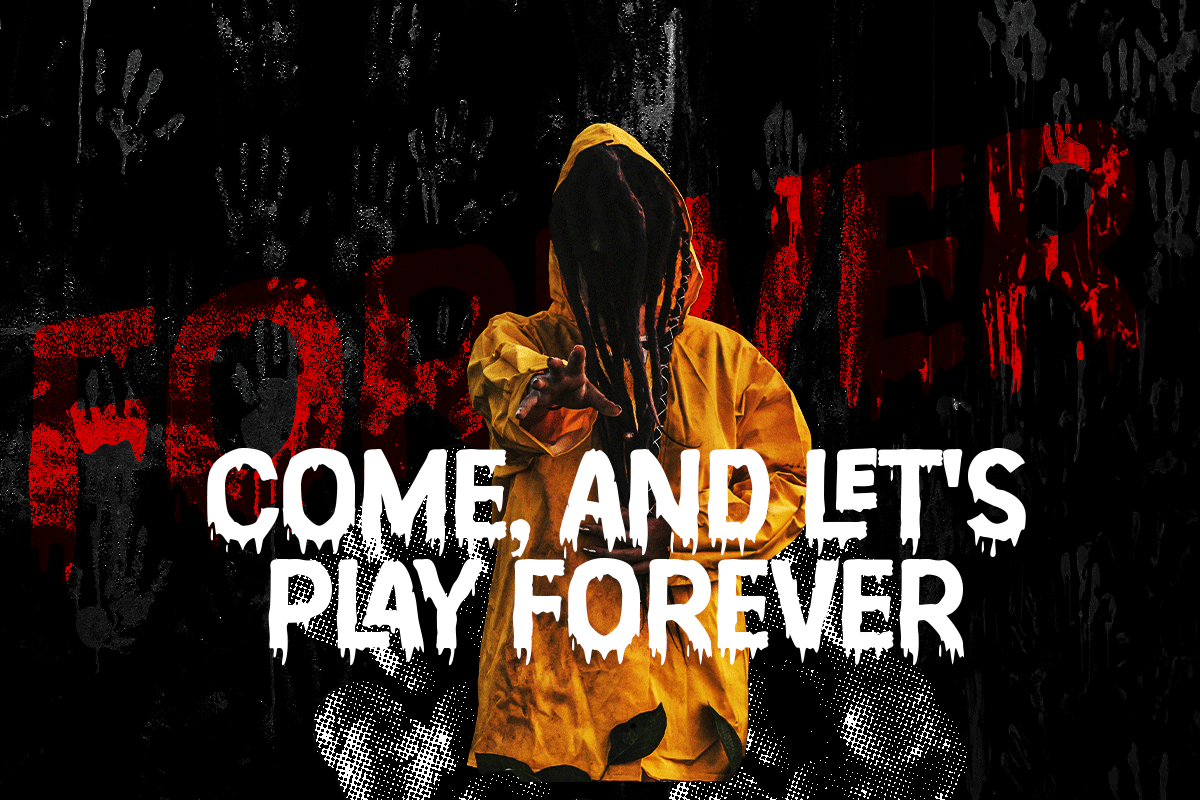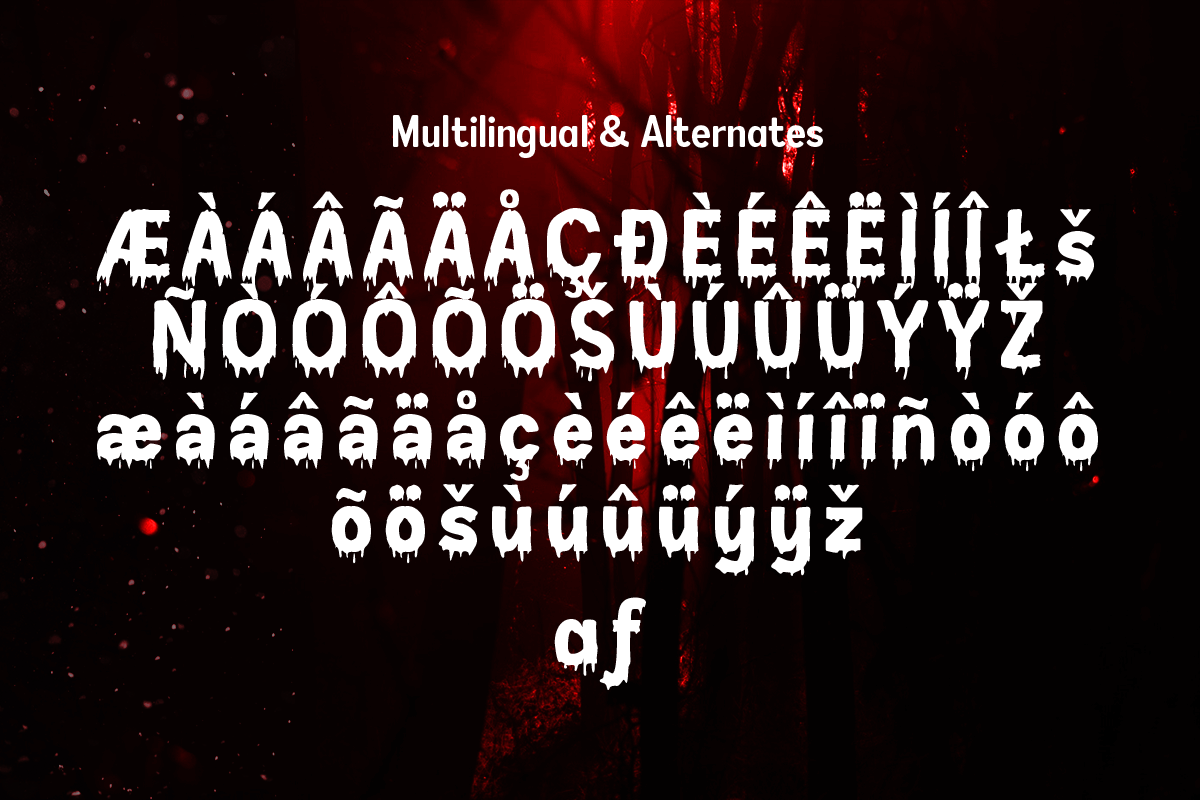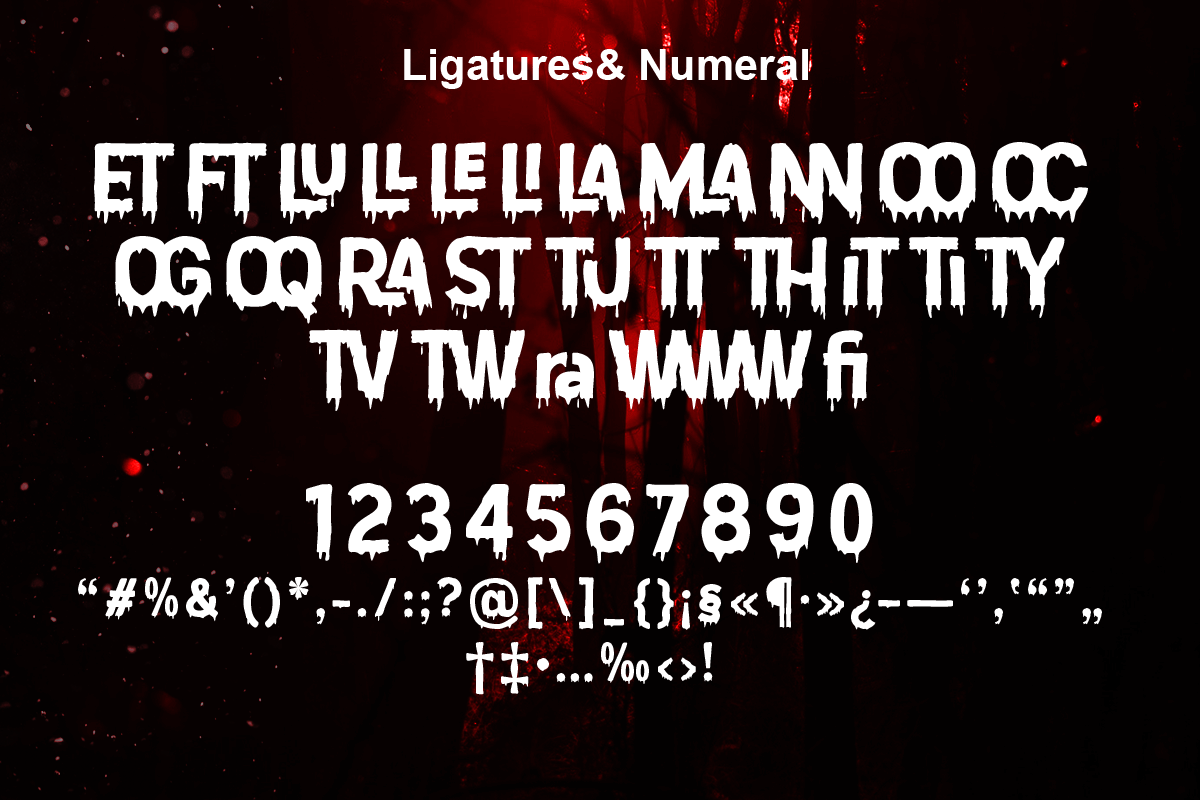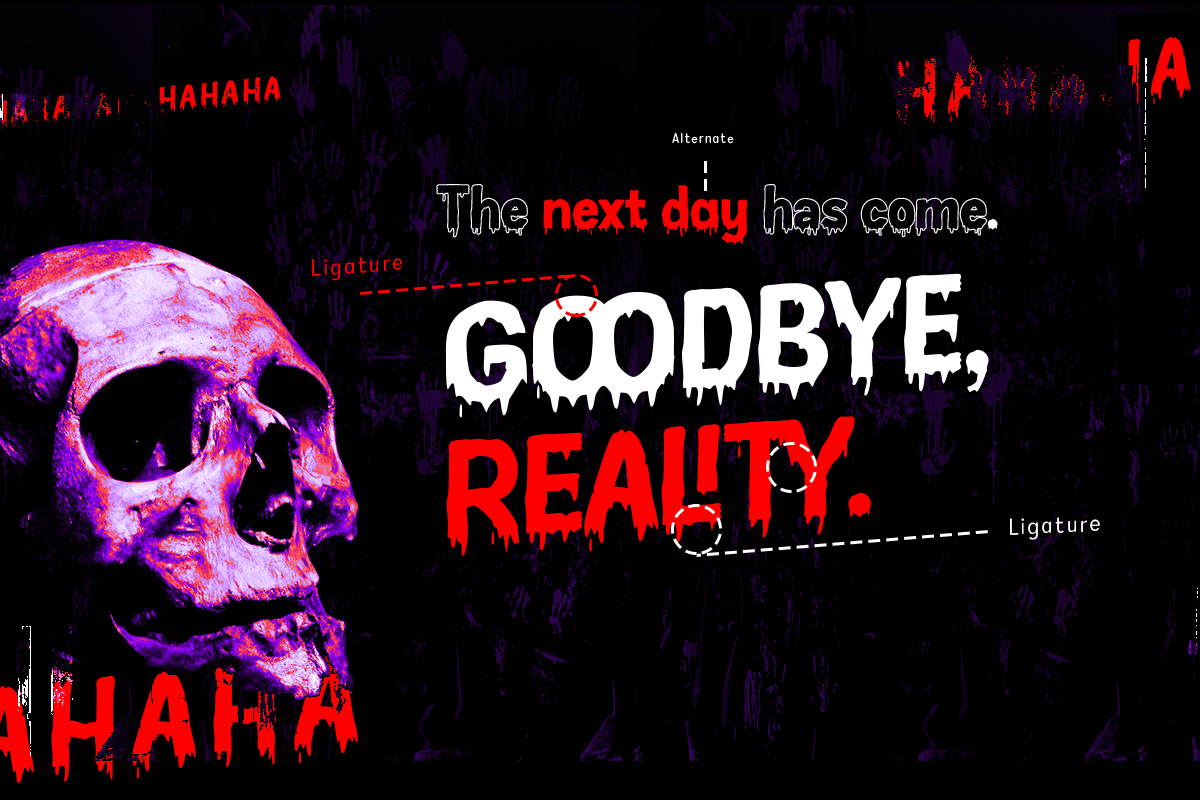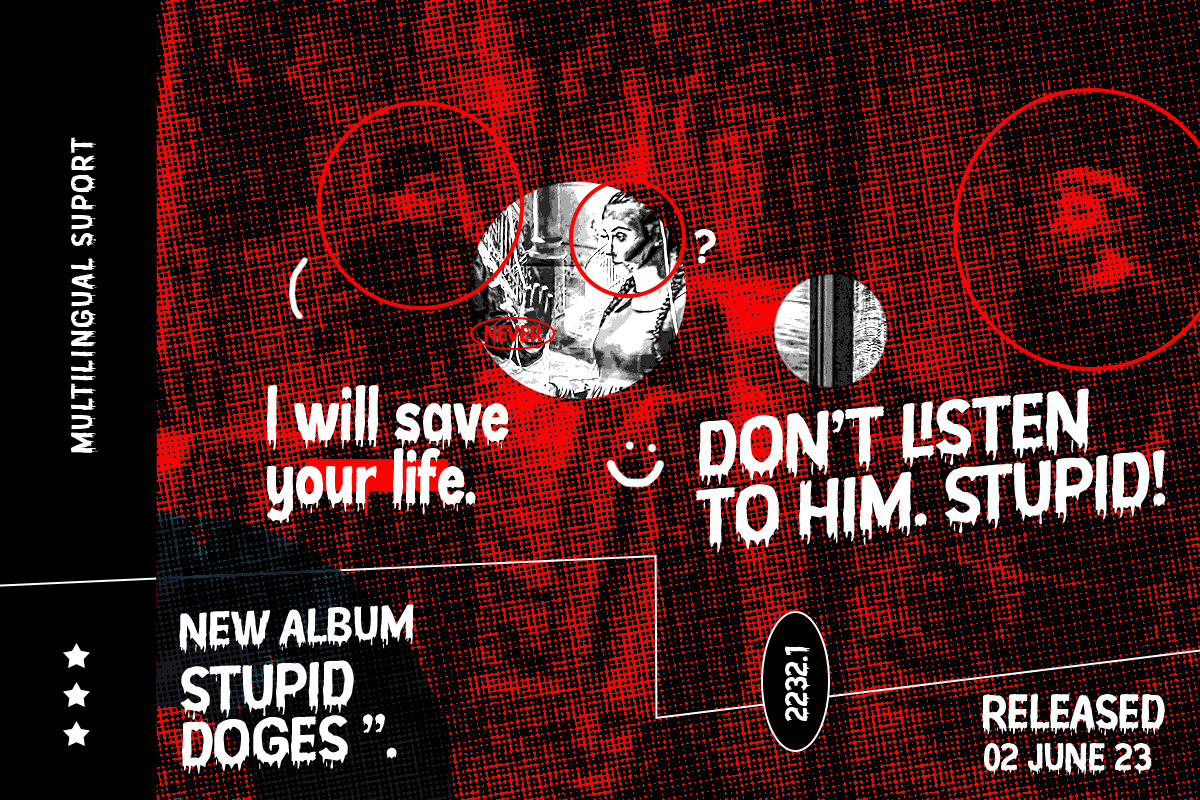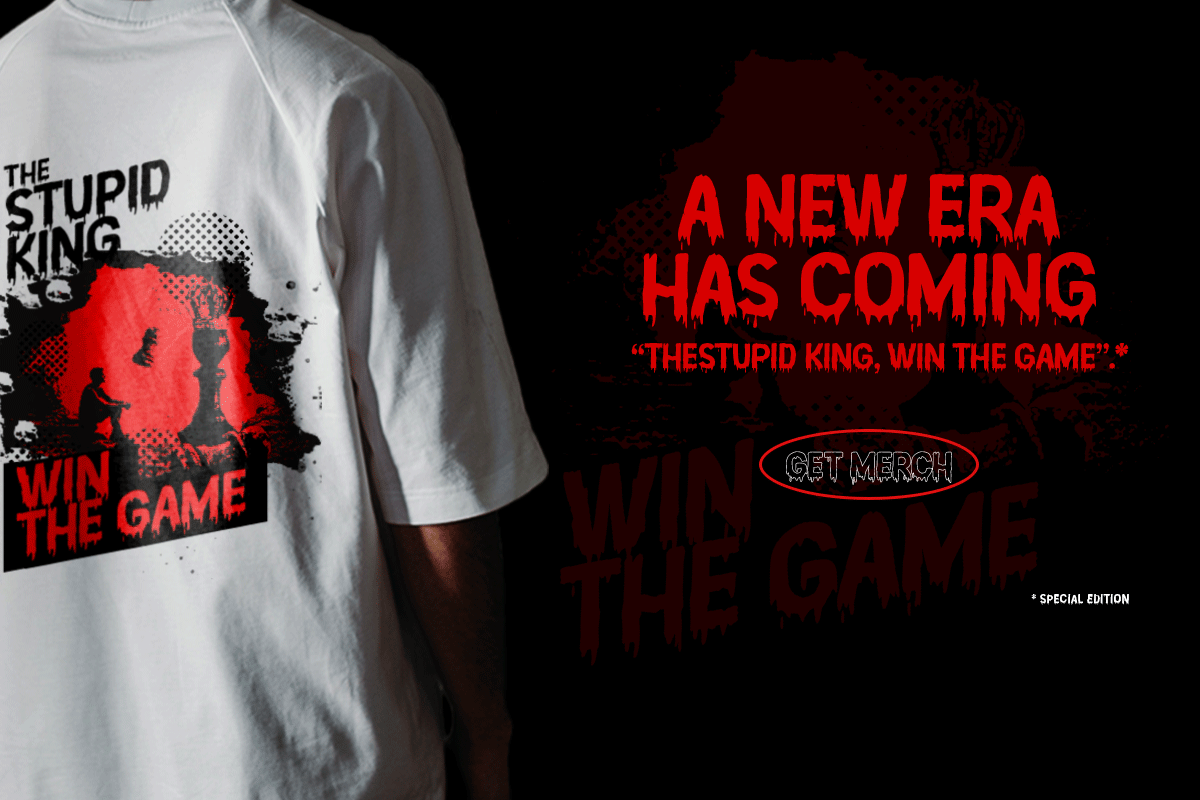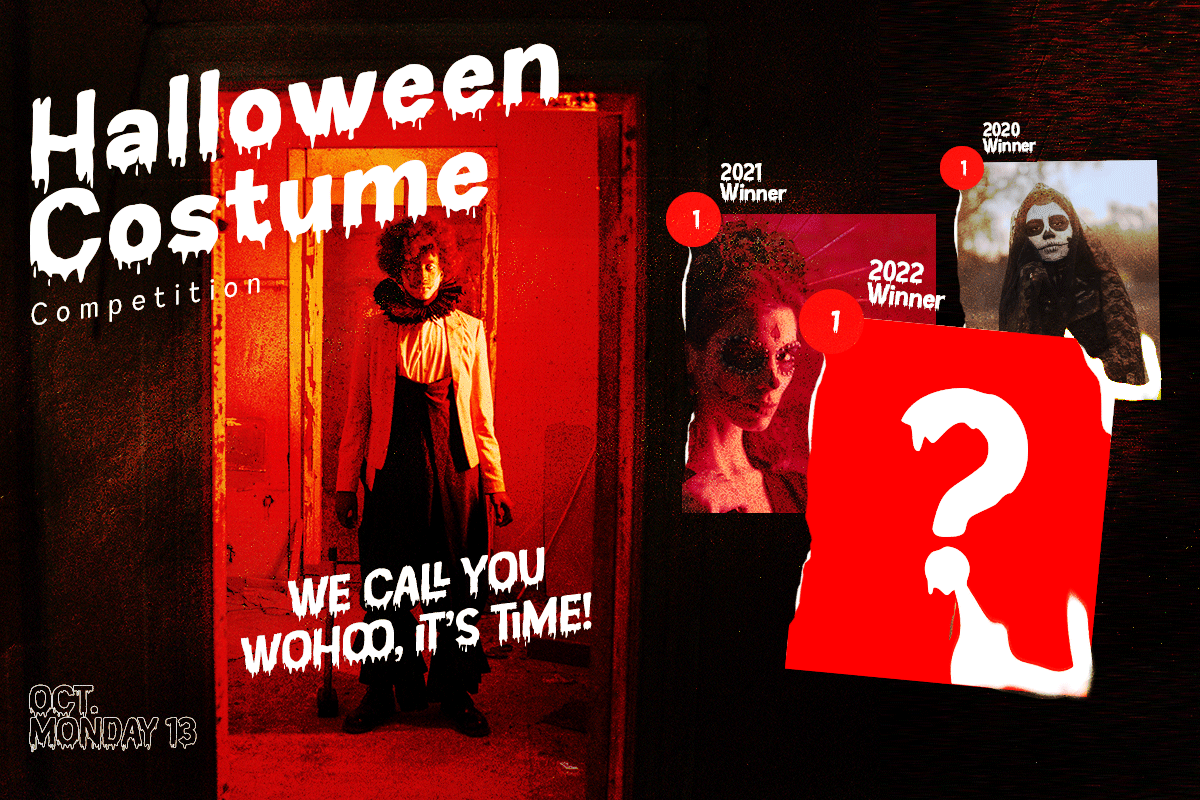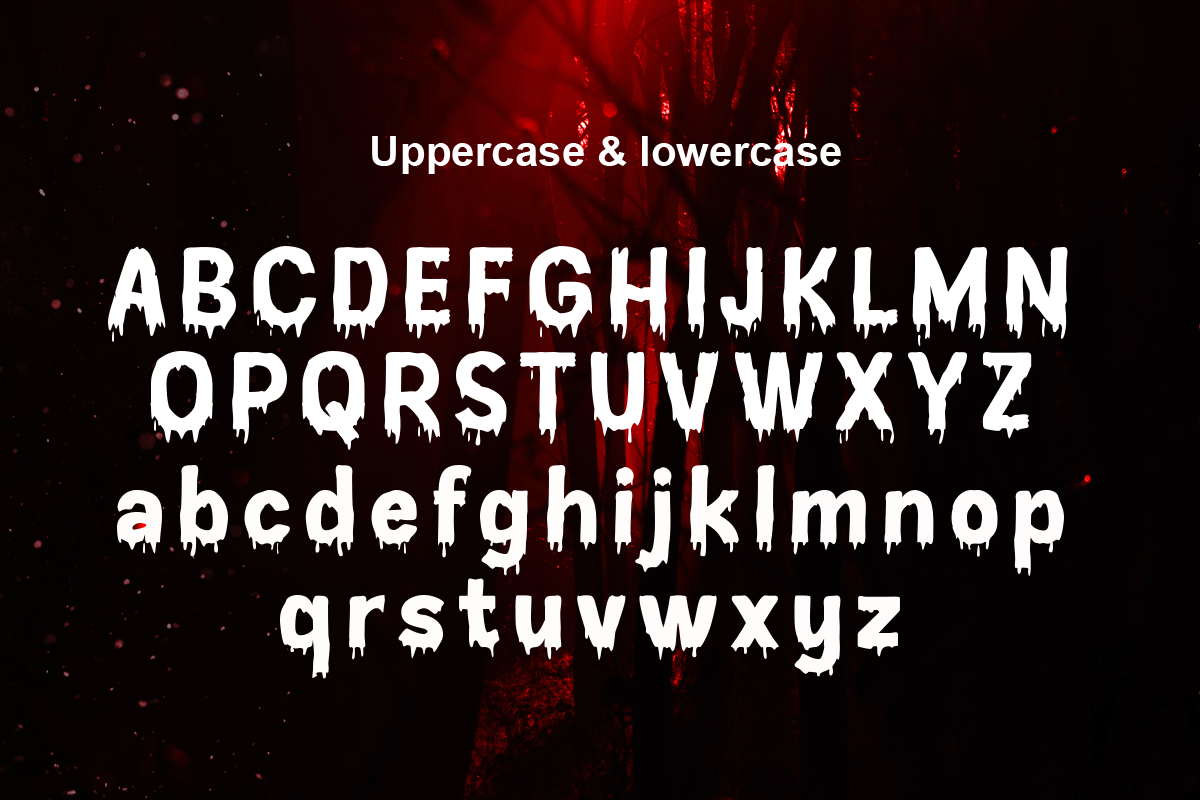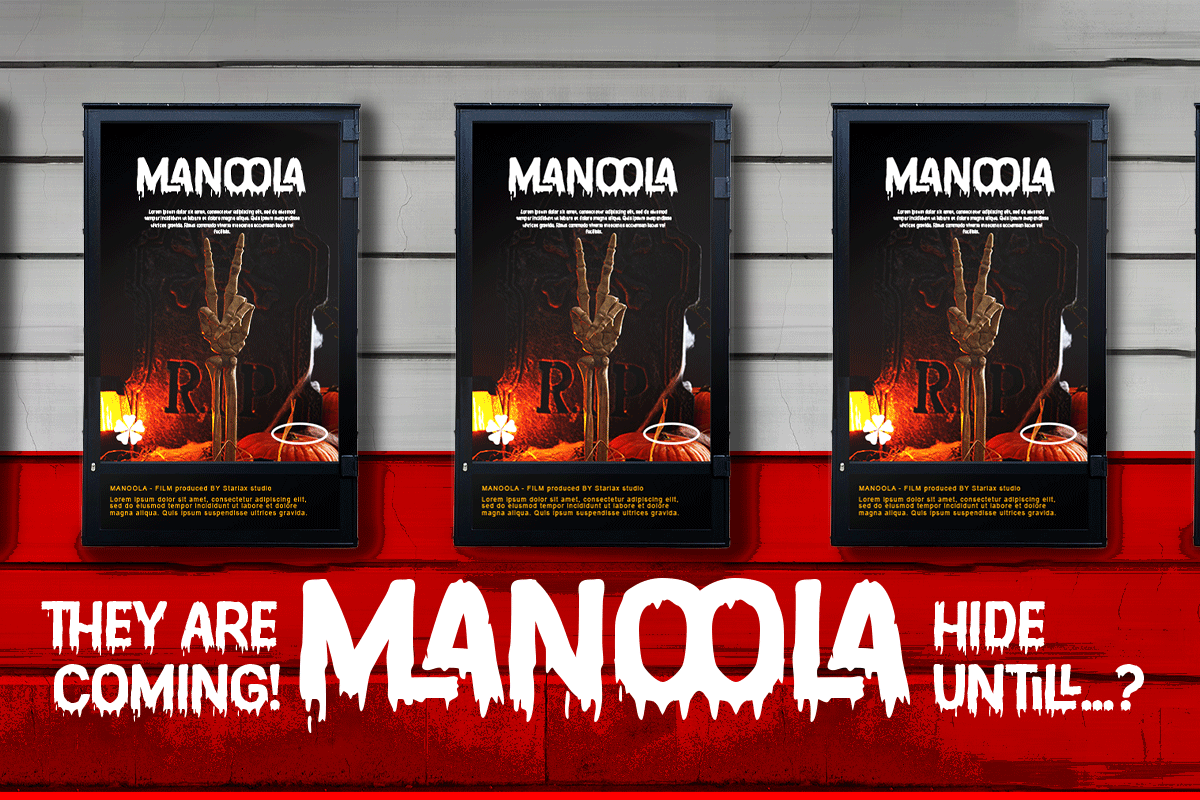
Lunturan
Hello this is a Lunturan, display font with a blood theme or something melted. Lunturan can be used for all kinds of scary or melting themed purposes. This font is designed to be a true favourite, it has the potential to take any of your creative ideas to the highest level!